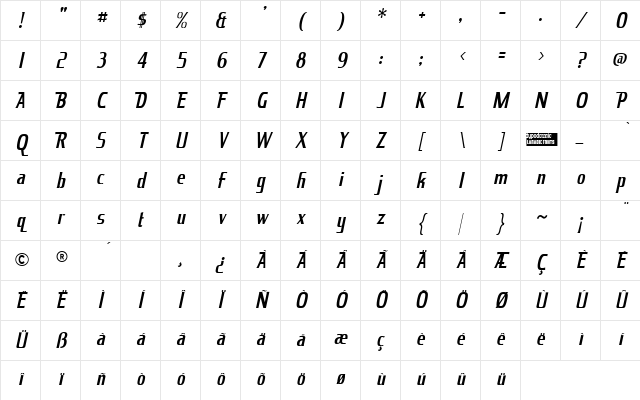
King Richard Italic Free Font
King Richard Italic
Design Context for King Richard
King Richard is a composed and adaptable typeface that performs quietly and consistently across a wide range of design contexts. The slanted form adds forward momentum and visual energy.
Pro Tip: Use King Richard for emphasis, pull quotes, and subheadings where its slanted energy can add rhythm to the layout.